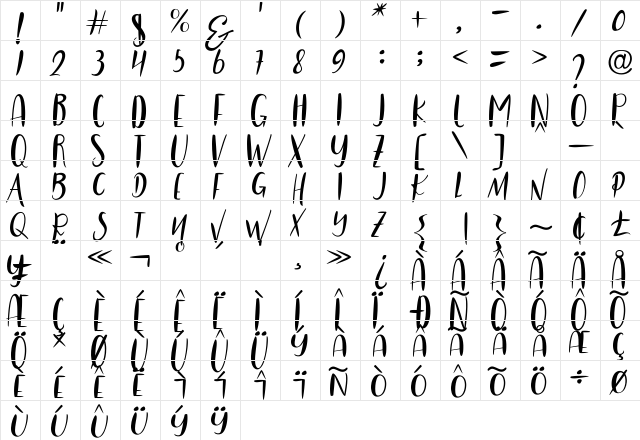
LITTLE STAR Bold
Design Context for LITTLE STAR Typeface
LITTLE STAR is a composed and adaptable typeface that performs quietly and consistently across a wide range of design contexts. Its bold stroke weight gives it real presence on the page.